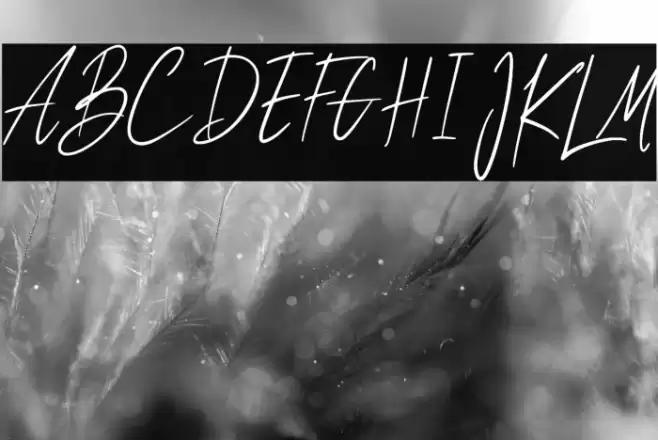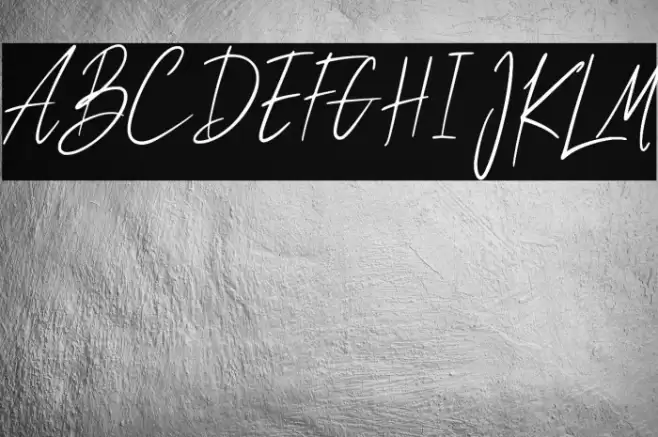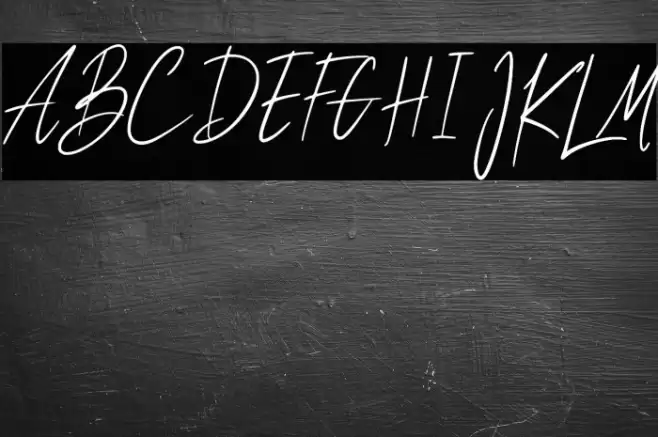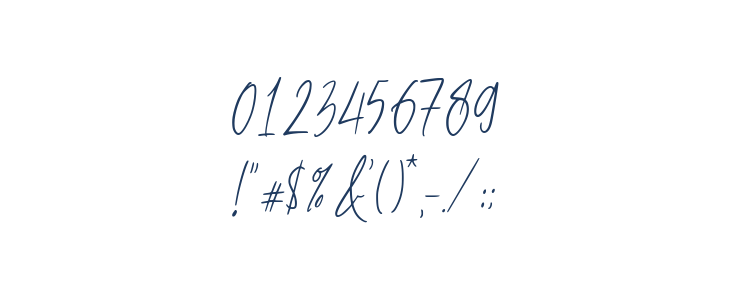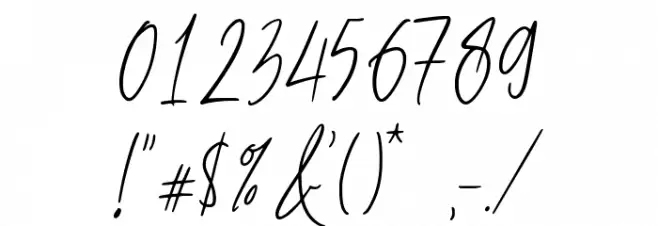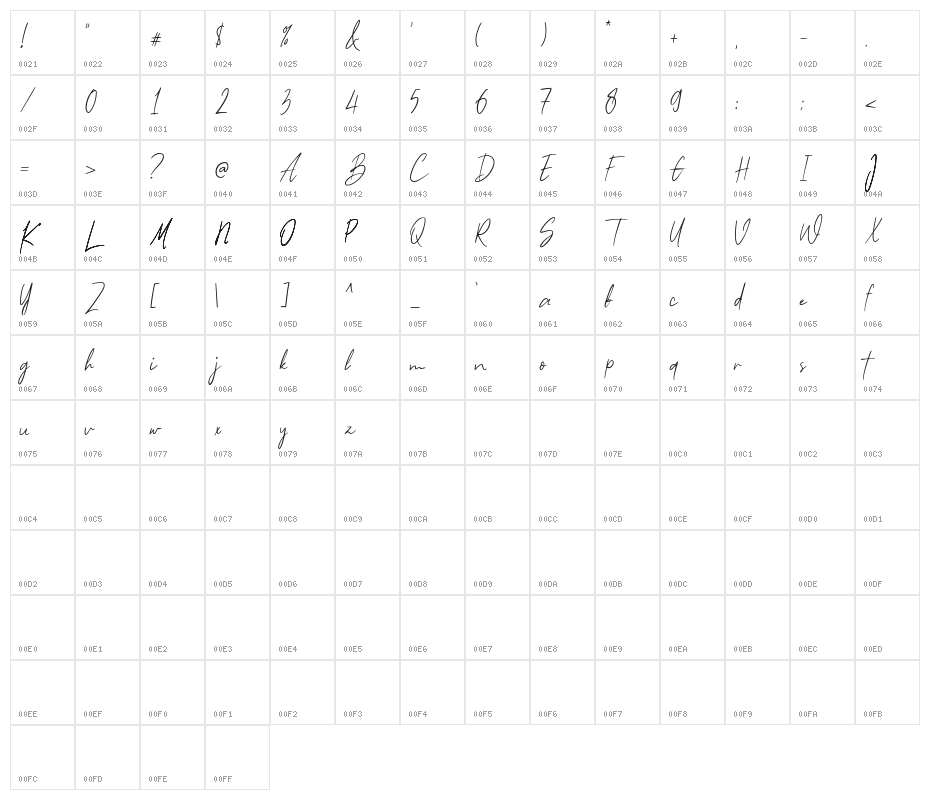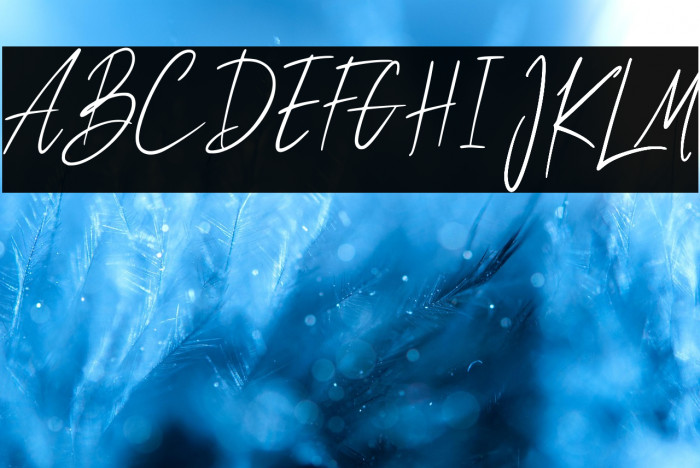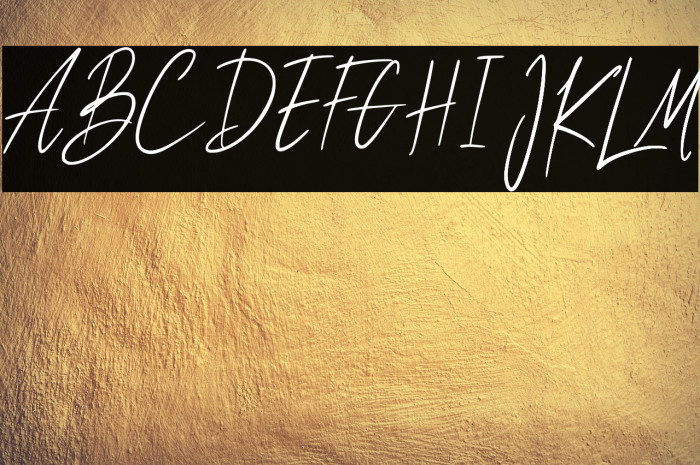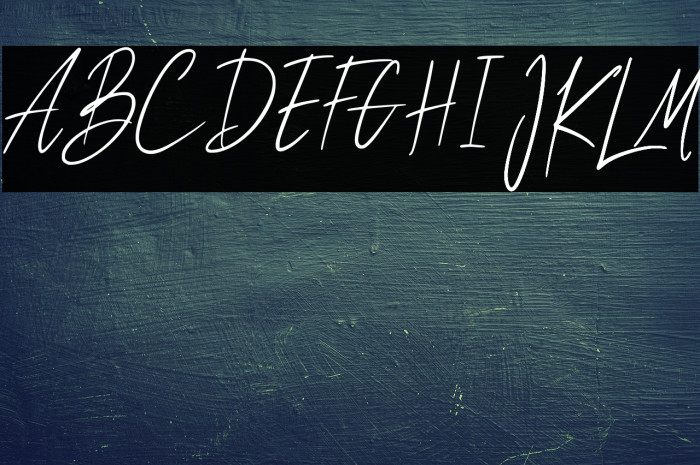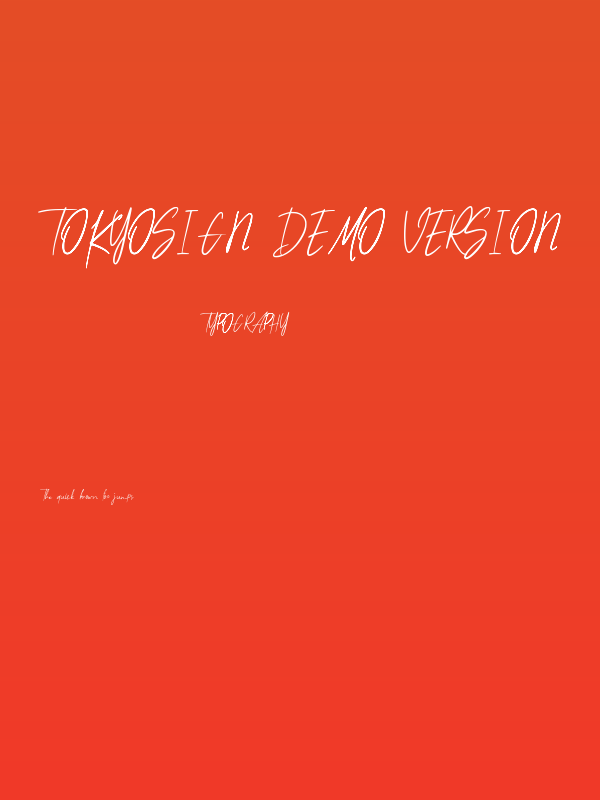
Tokyosign Demo Version Font
Tokyosign Demo Version Description
This font exudes a dynamic and energetic style, characterized by its handwritten script appearance. The letters are fluid and connected, giving a sense of motion and personal touch. The uppercase letters are tall and slightly slanted, while the lowercase letters maintain a consistent flow, enhancing readability despite the cursive nature. The numerals and special characters follow the same stylistic cues, ensuring uniformity across all glyphs. This font is ideal for projects that require a personal, informal, or artistic touch, such as invitations, greeting cards, or creative branding.
A dynamic handwritten script font with fluid, connected letters from Uncategorized fonts.
- Font: Tokyosign Demo Version
- Proposed Projects: Ideal for invitations, greeting cards, artistic branding, and personal projects.
- Use Case: Logos, Headlines, Artistic projects